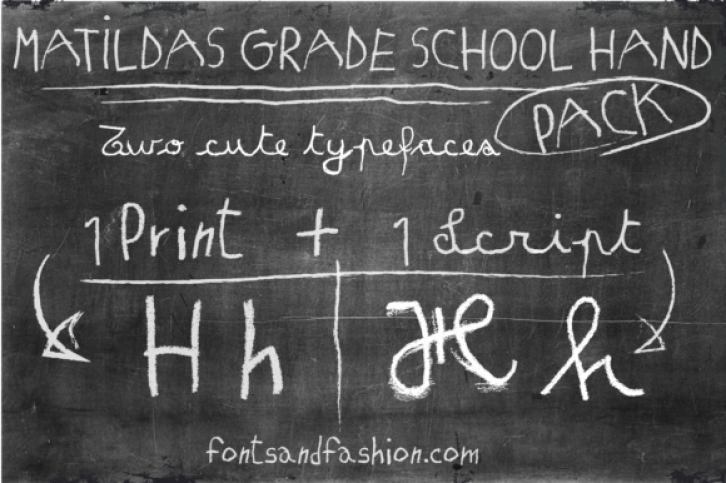
Matilda’s Grade School Hand Pack is a font family, consisting of two different fonts, inspired by the designer’s little niece’s handwriting. Its shaky writing feels both funny and lively and makes an untidily perfect script!